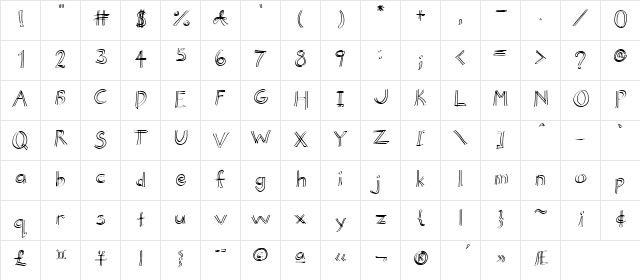
Butterfly Comic Logo Regular
Design Context for Butterfly Comic Logo Typeface
Butterfly Comic Logo has an approachable, lighthearted character — its loose, expressive forms are well-suited to children's content, casual branding, and fun-first design.
Font Pairing: Pairs well with a rounded or humanist sans for body copy, maintaining the friendly tone without relying on Butterfly Comic Logo to carry extended reading.
Pro Tip: Avoid using Butterfly Comic Logo for long passages of text — it works best for headlines, labels, and short calls to action.